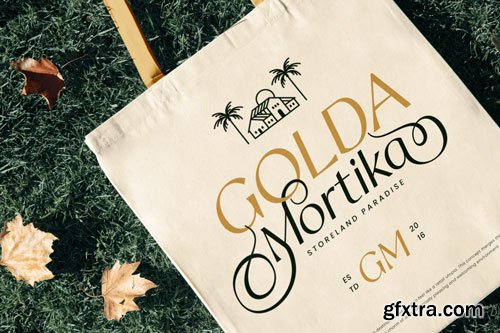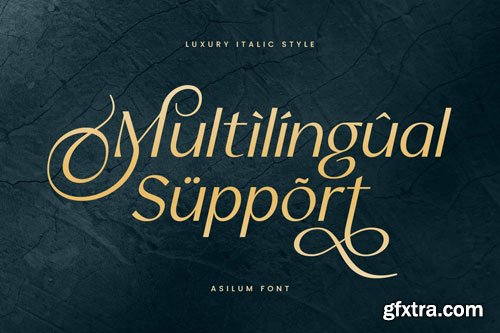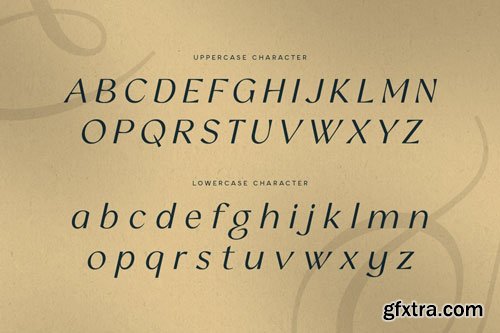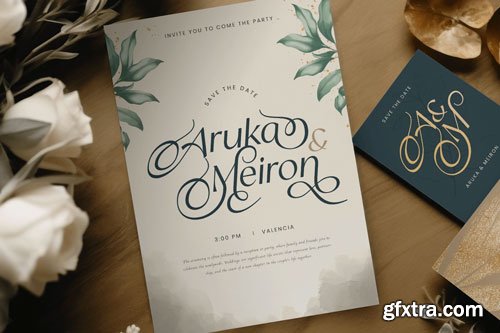
Asilum - Luxury Italic Font
Asilum is a luxury italic font designed to bring sophistication and class to your projects. With its smooth curves, stylish slant, and refined details, this font embodies timeless beauty. Whether used for high-end branding, fashion editorials, or premium product packaging, Asilum delivers an exquisite and professional touch that elevates any design.